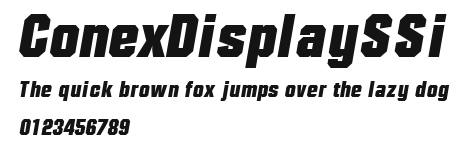
• Font Name: ConexDisplaySSi
• Full Font Name: ConexDisplaySSi Italic
ConexDisplaySSi.ttf is a modern, elegant sans-serif font designed for ultimate readability and visual harmony. Perfect for branding, headlines, web design, and print materials.